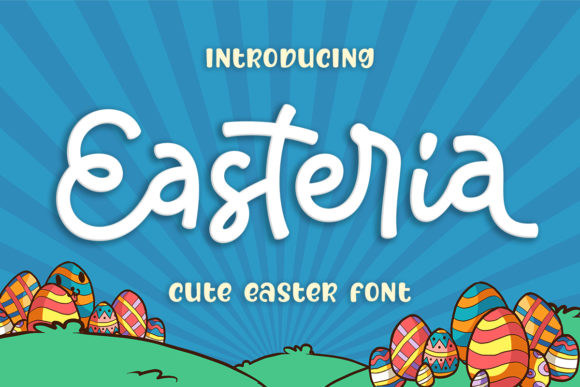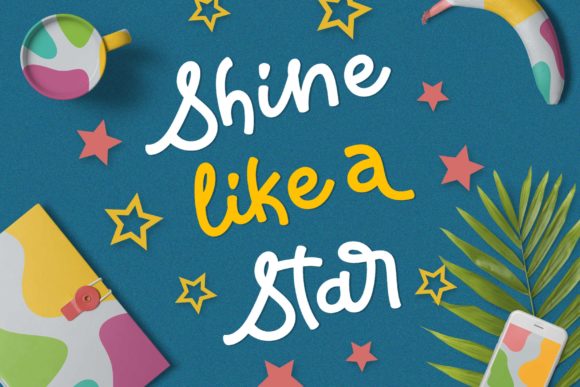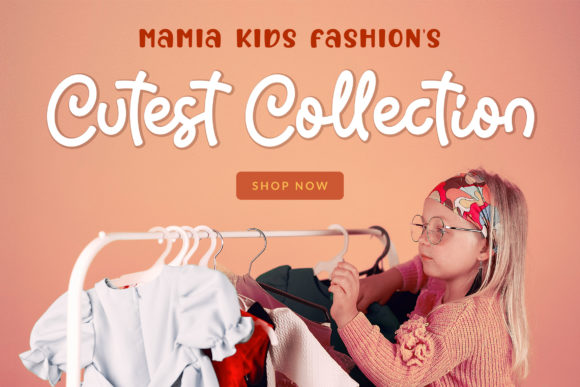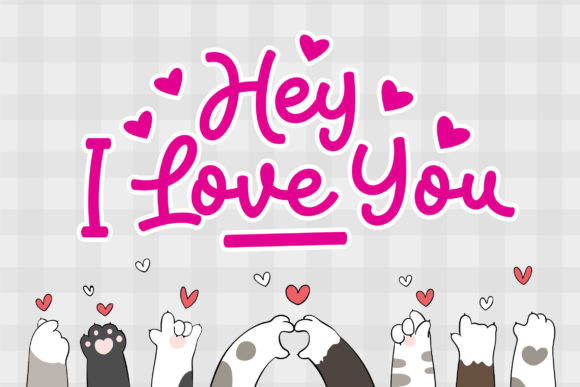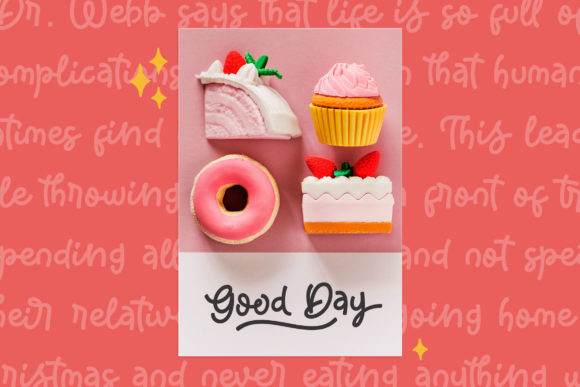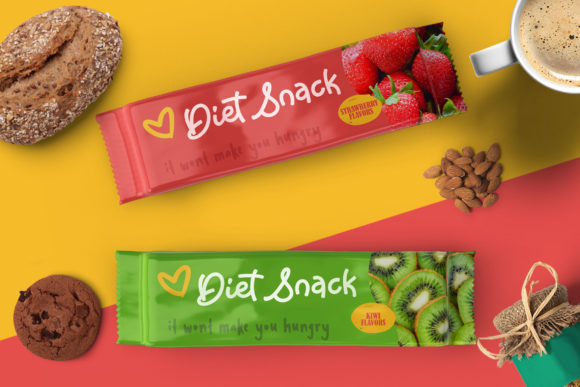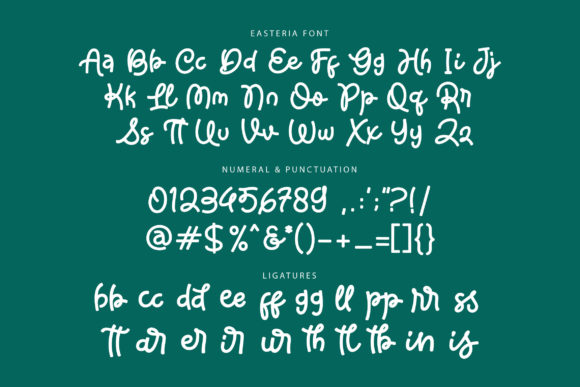
Easteria Font
About Easteria Font
Easteria embodies fun, cuteness and authenticity. This enchanting handwritten font will turn any creative idea into a true standout.